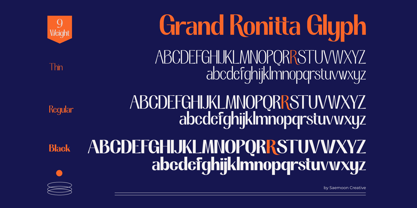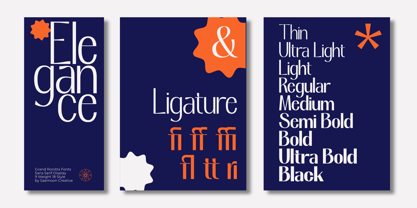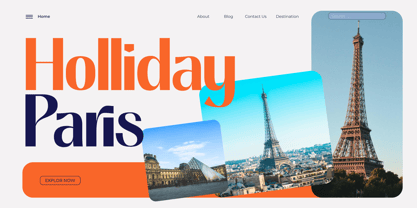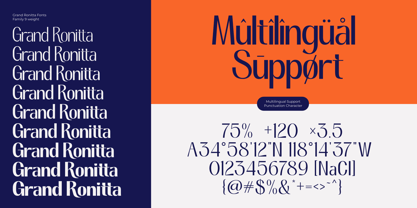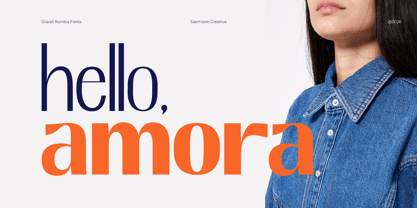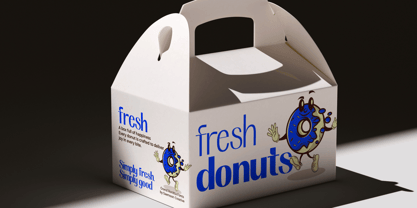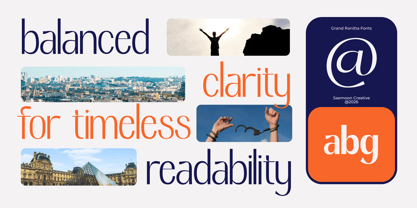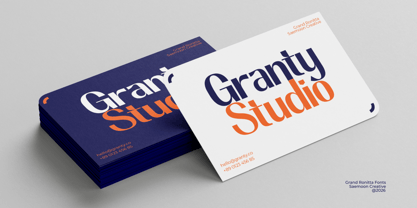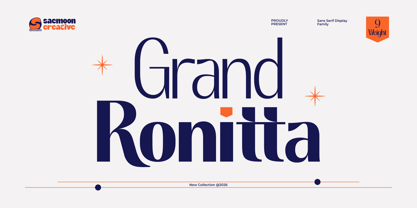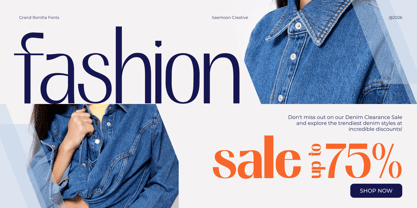
Grand Ronitta
by Saemoon Creative
The Grand Ronitta Font Family was designed by Sapto Susilo and published by Saemoon Creative. Grand Ronitta contains 9 styles and family package options. More about this family
Grand Ronitta is a modern sans serif display typeface crafted to bring elegance and personality into your design work. Featuring a refined contrast between thick and thin strokes, this font delivers a sophisticated yet expressive look that stands out beautifully in large sizes. Designed with a contemporary aesthetic, Grand Ronitta offers clean structures combined with subtle stylistic curves, making it perfect for branding, editorial layouts, logos, headlines, packaging, and creative projects that need a touch of class and uniqueness. With 9 carefully crafted weights, this type family provides great flexibility—from light and graceful to bold and impactful—allowing you to create dynamic visual hierarchies with ease. Grand Ronitta is more than just a typeface—it’s a statement of style, confidence, and modern elegance. Features: 9 Weights (Thin to Black) Uppercase & Lowercase Numerals & Punctuation Multilingual Support Clean & Modern Design Perfect for: Branding, Logos, Fashion, Editorial, Social Media, Packaging, and Display Use.
Designers: Sapto Susilo
Current Foundry: Saemoon Creative